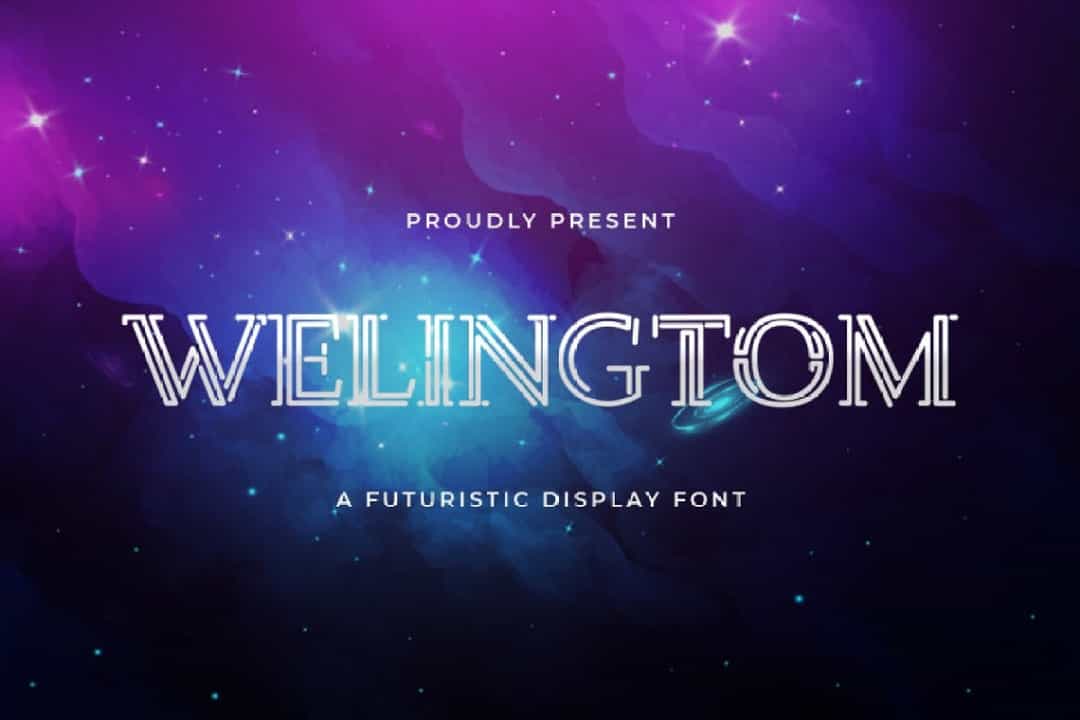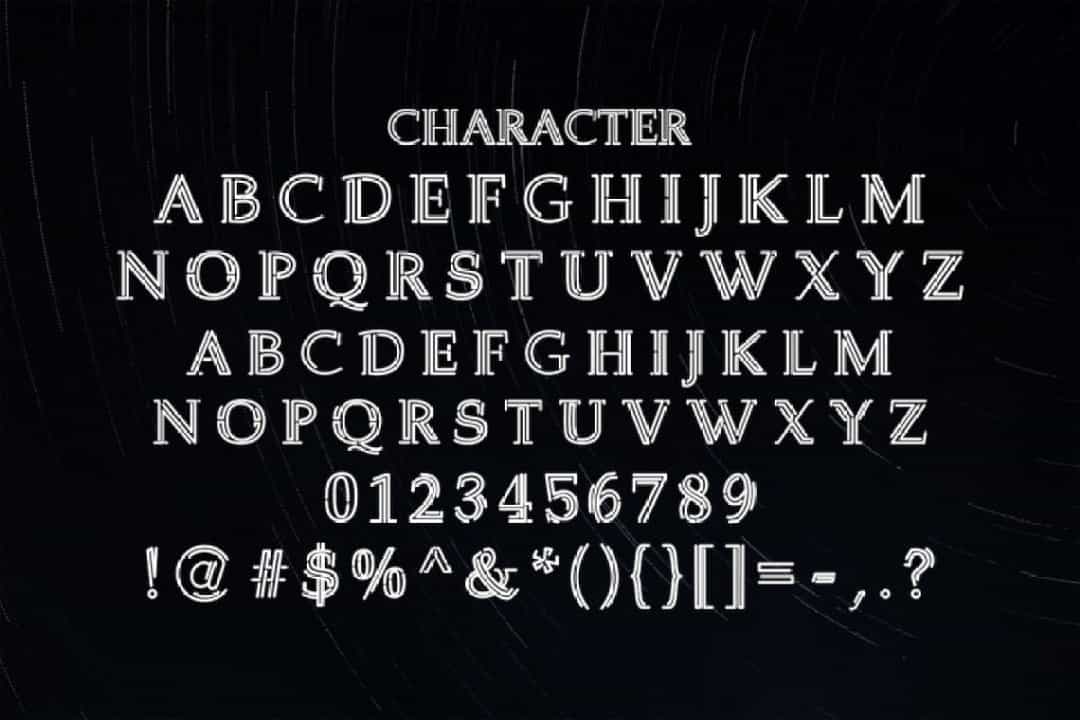
Welingtom is an art deco-inspired display font featuring uppercase multilingual alphabets, numerals and punctuation in simple yet striking characters that can easily scalable up and read aloud. Ideal for home-ware projects, branding designs, packaging designs for products magazines headers for magazines – or simply used as chic text overlay on every background picture – Welingtom will add flair and class to any project or background picture!